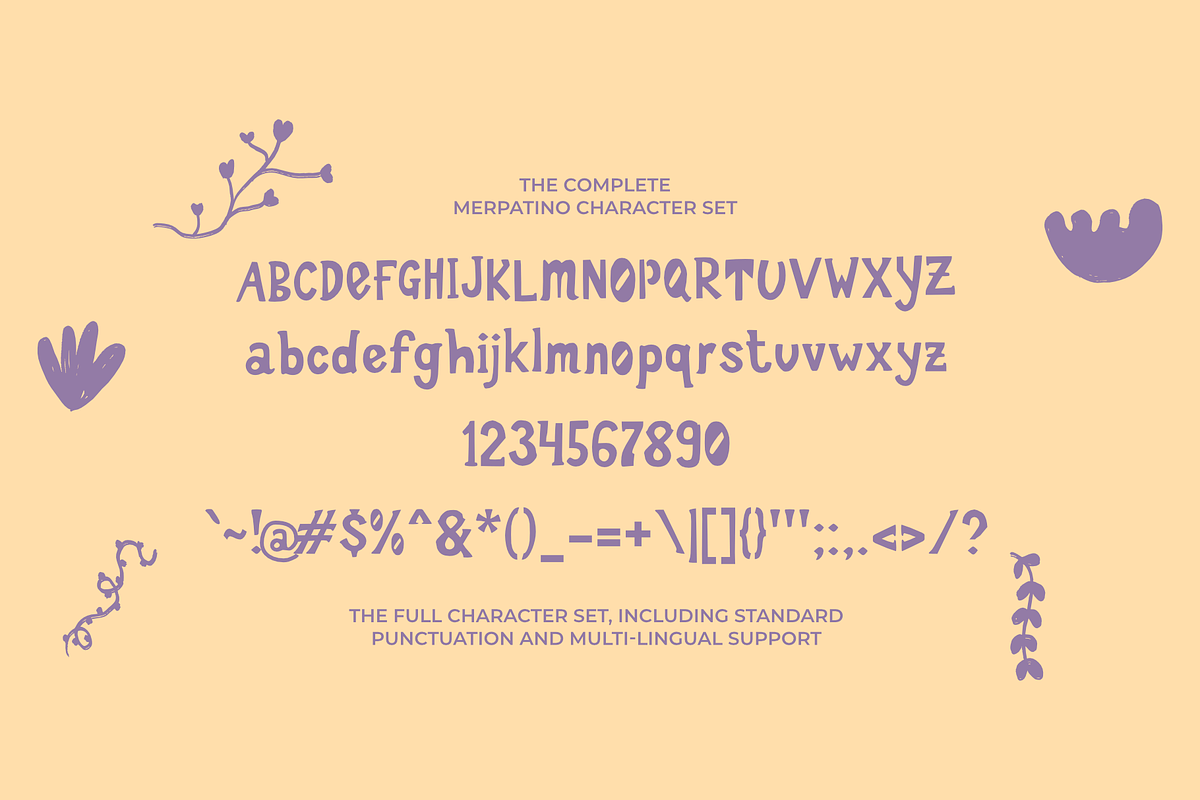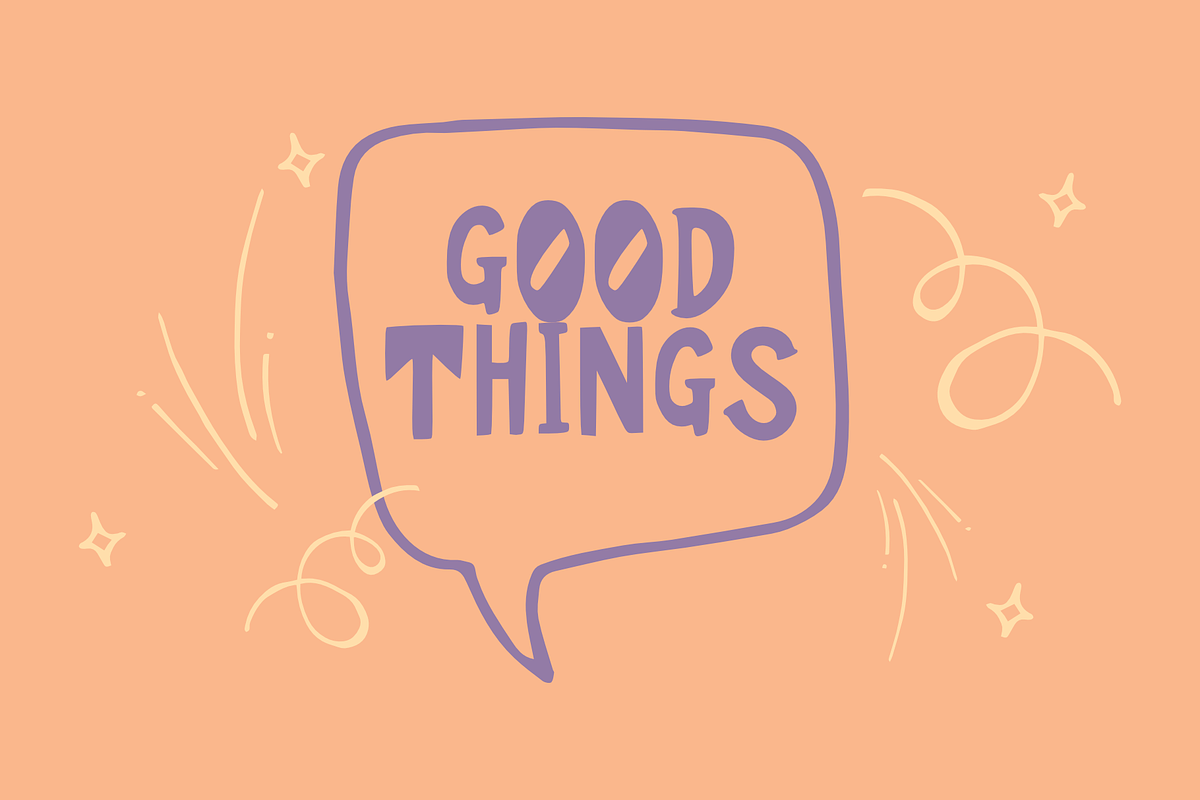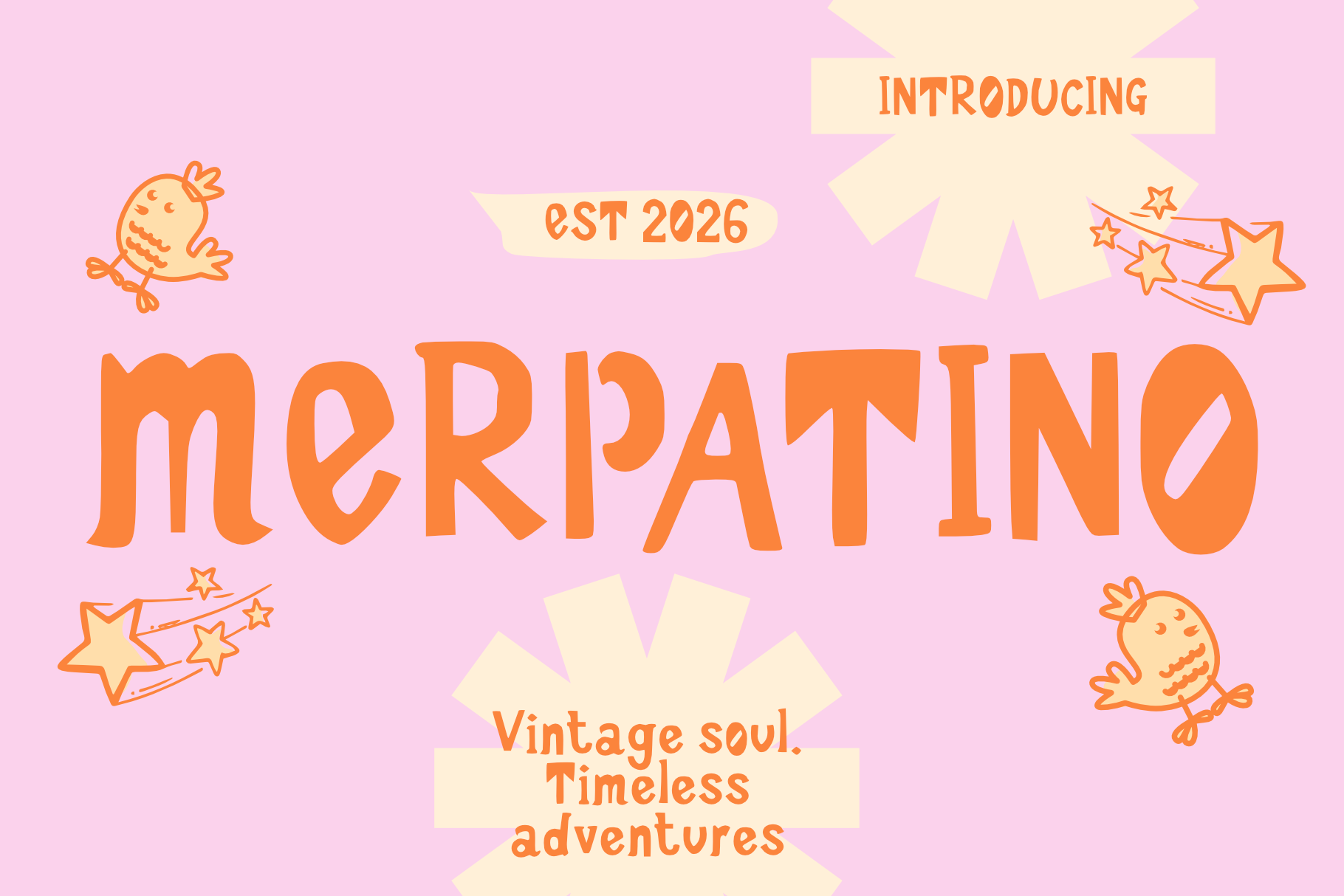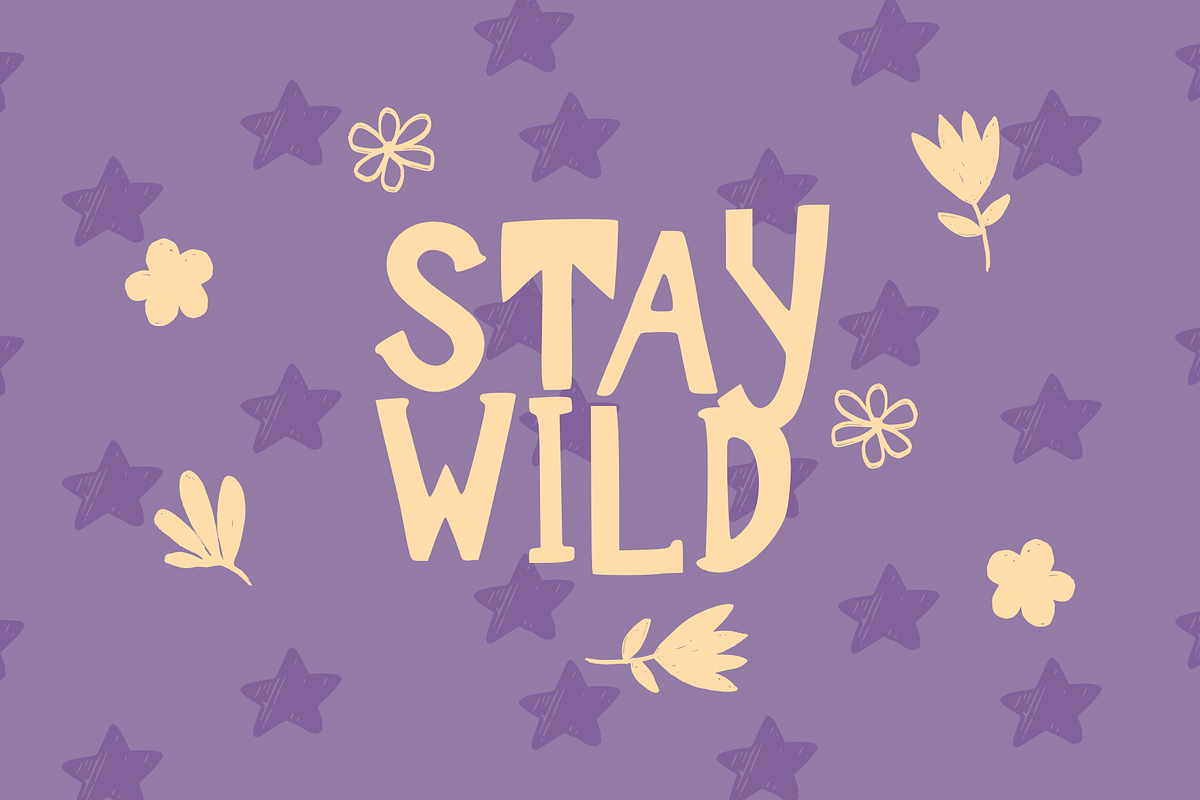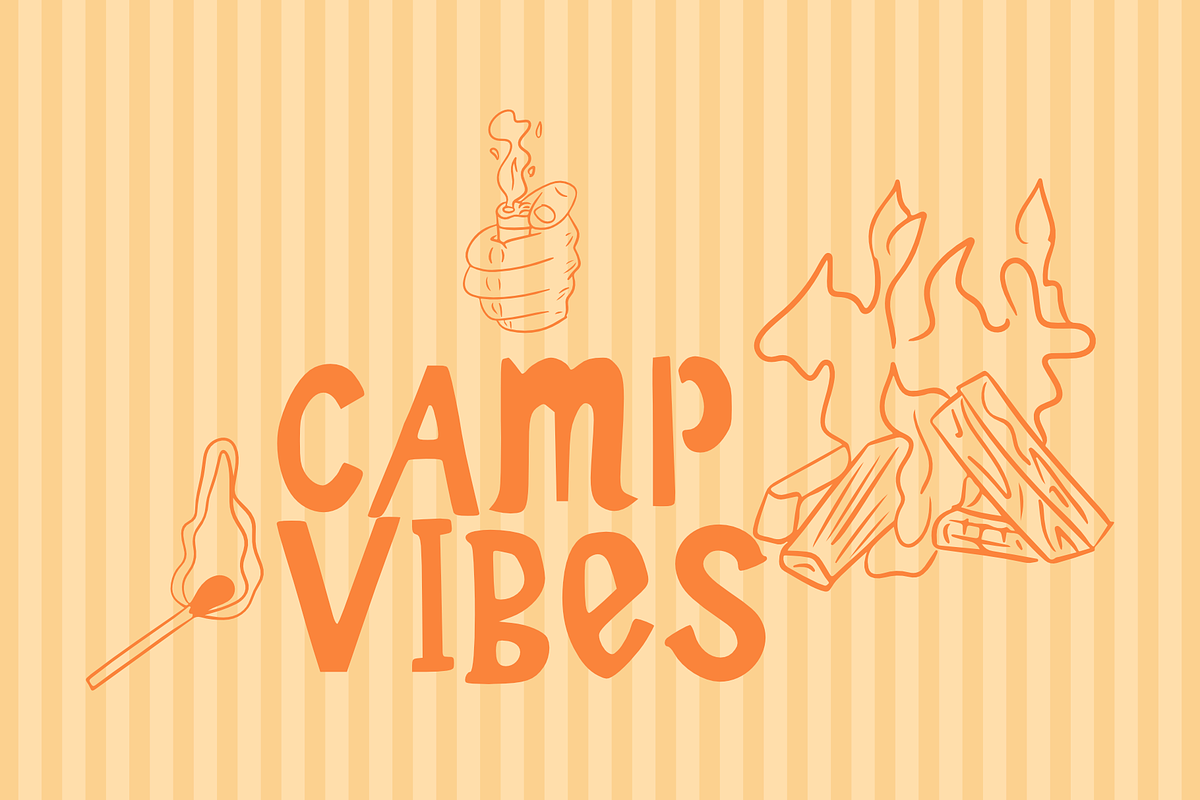
Merpatino Vintage Display Font
Merpatino is a charming vintage display font inspired by nostalgic hand-painted signs, retro packaging, and playful lettering from the golden era of print. Featuring bold, organic letterforms with delightfully irregular curves, this typeface brings warmth, personality, and handcrafted character to every design. Its unique shapes create a fun yet timeless look, making it perfect for branding, logos, packaging, posters, apparel, stickers, social media graphics, children's products, café menus, and creative merchandise. Whether you're designing with a rustic, bohemian, retro, or whimsical aesthetic, Merpatino delivers an authentic handcrafted feel that stands out effortlessly.